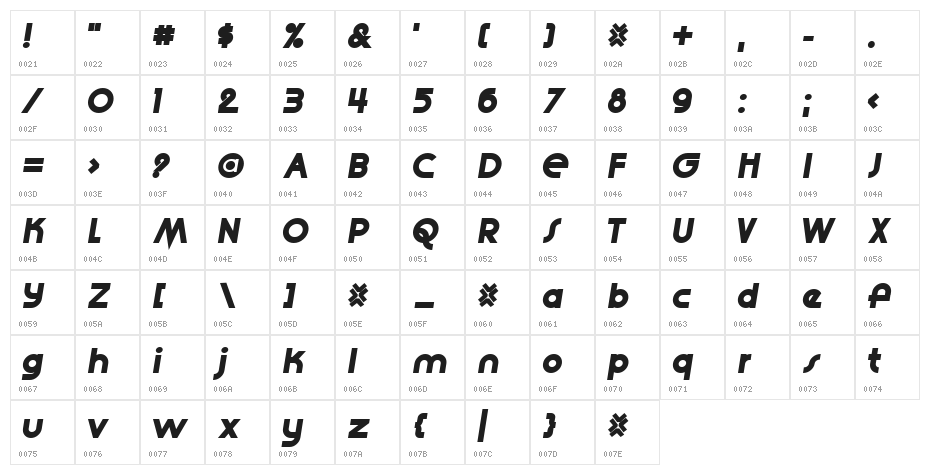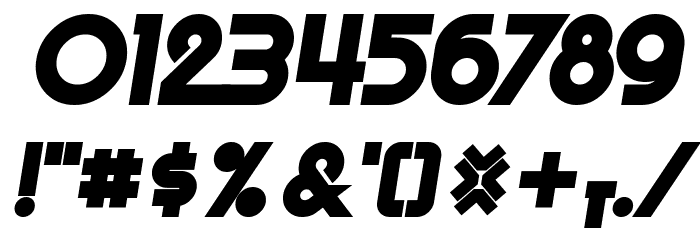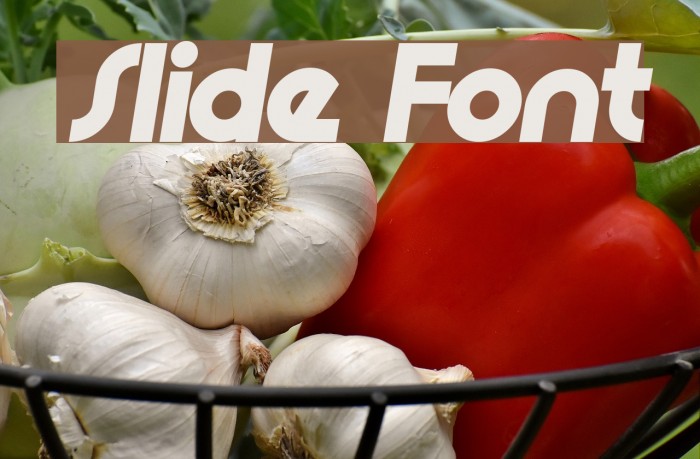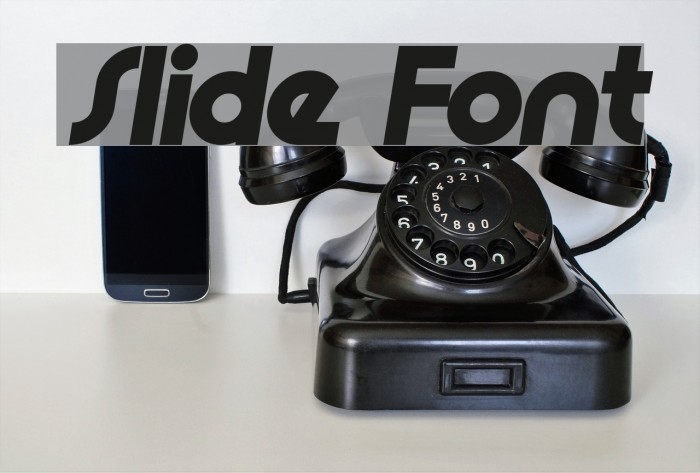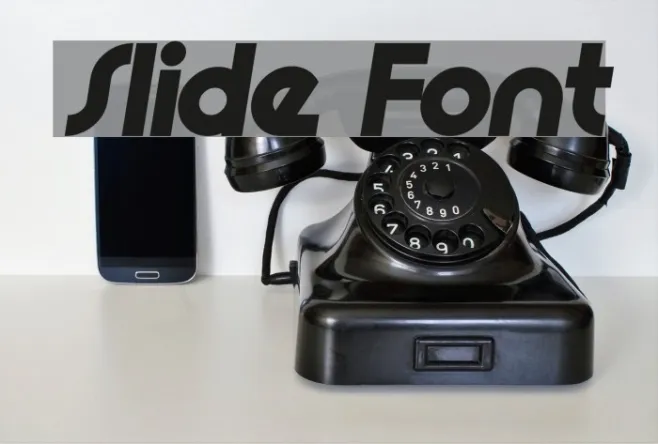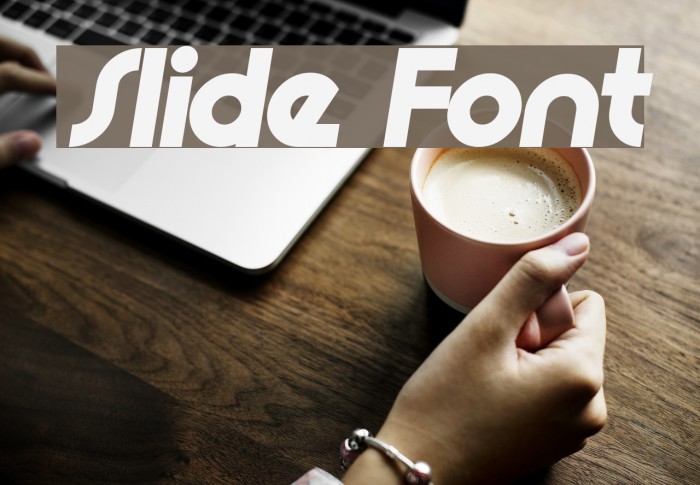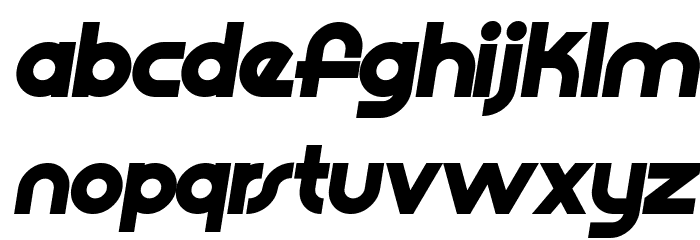
Slide Font
Slide Description
This font features a bold and dynamic style with a modern flair. The characters are slightly slanted, giving a sense of movement and energy. The strokes are thick and consistent, providing a strong visual impact. The design includes rounded edges, which soften the overall appearance, making it approachable yet assertive. The numerals and special characters maintain the same boldness, ensuring uniformity across all glyphs. This font is well-suited for projects that require a contemporary and energetic look.
| Proposed Projects | Ideal for sports branding, dynamic advertising, modern logos, and eye-catching headlines. |